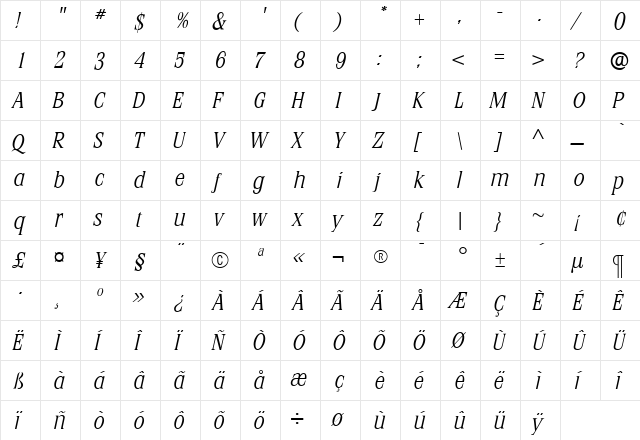
StirlingLightItalic Roman Font Preview
Design Context for StirlingLightItalic Typeface
StirlingLightItalic takes a measured approach to typography — its balanced proportions and neutral character make it a reliable workhorse for both digital and print work. The slanted form adds forward momentum and visual energy. Its slender proportions lend an understated elegance to any composition.
Pro Tip: Try StirlingLightItalic for annotation and caption copy alongside an upright companion — the contrast in angle creates a dynamic but ordered typographic system.